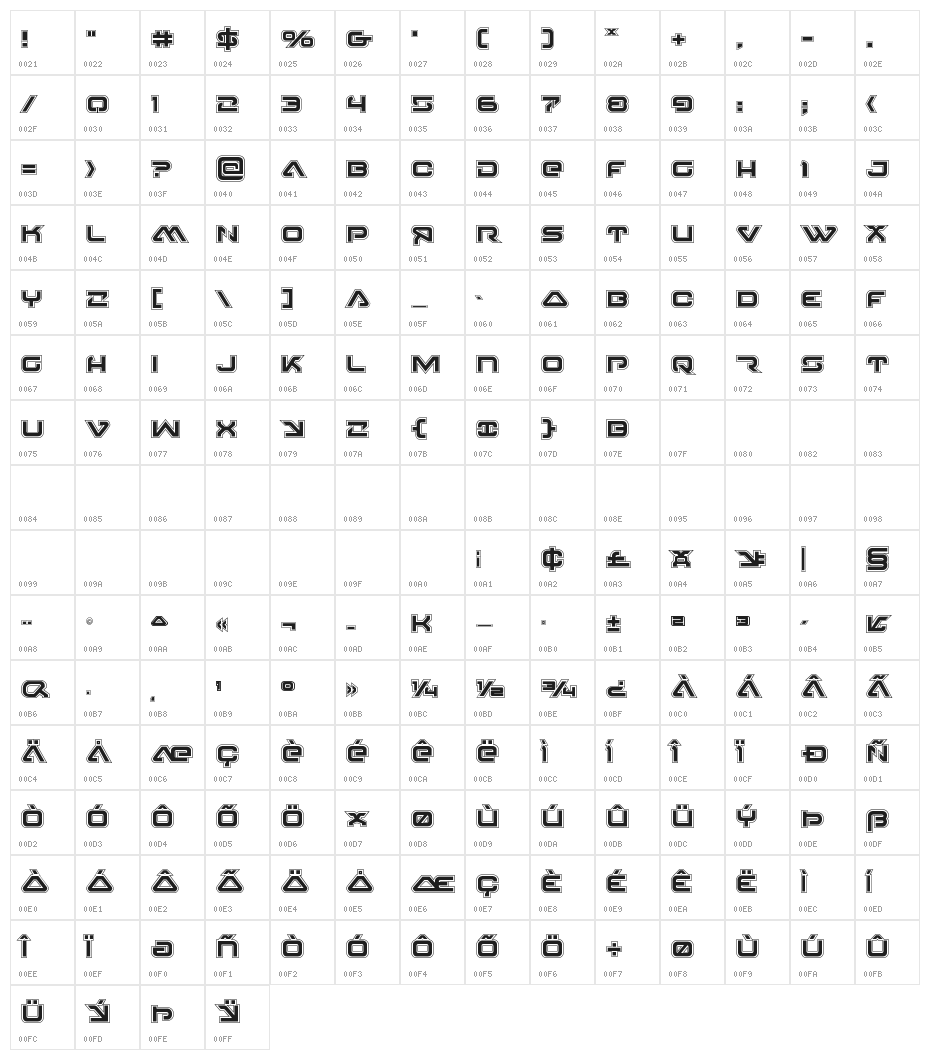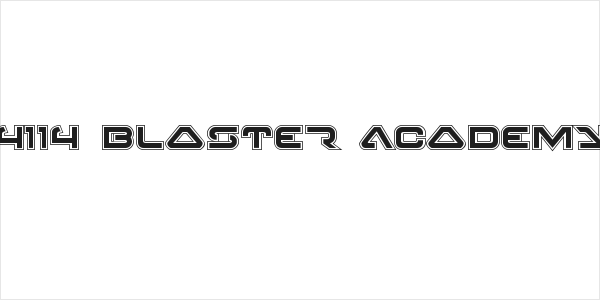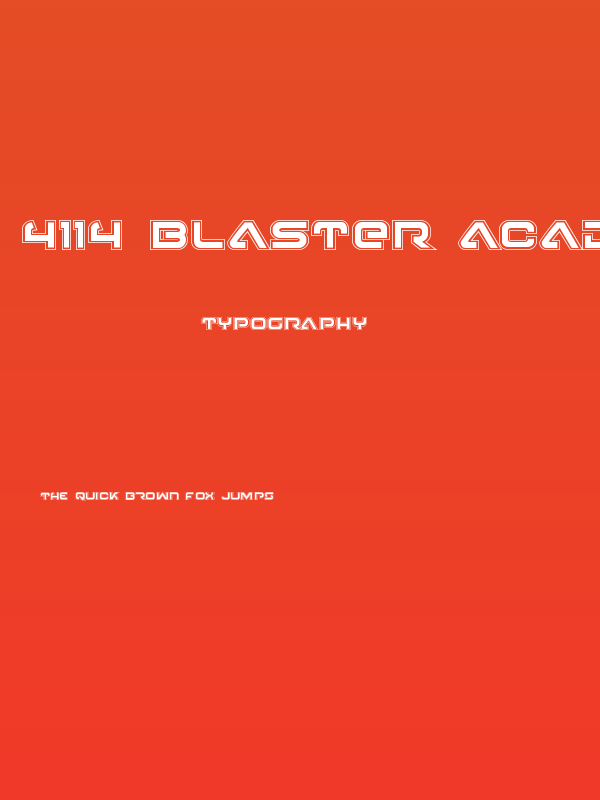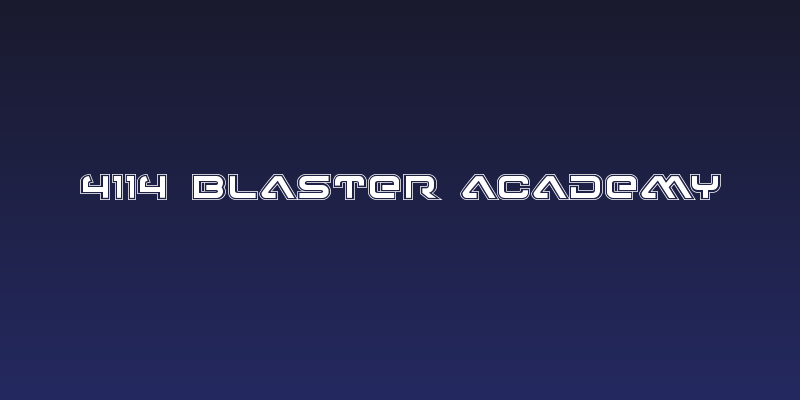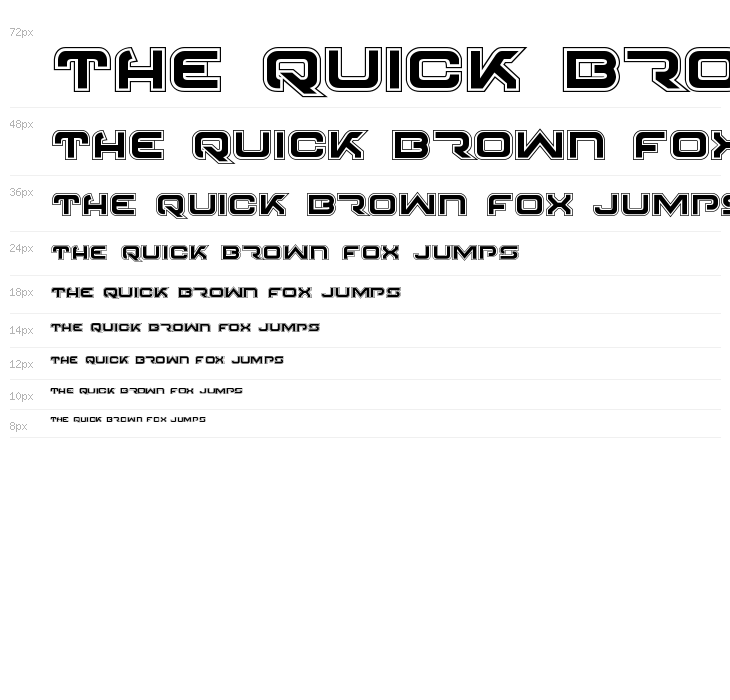
4114 Blaster Academy Font
4114 Blaster Academy Description
This font features a bold, futuristic style with a strong geometric influence. The characters are outlined with a thick border, creating a striking and dynamic appearance. The angular design and sharp edges give it a modern and tech-inspired feel, making it ideal for projects that require a bold statement. The uppercase and lowercase letters maintain a consistent style, while the numbers and special characters complement the overall design. This font is perfect for creating eye-catching headlines, logos, and posters that demand attention.
| Proposed Projects | Ideal for tech-themed posters, sci-fi movie titles, video game graphics, and modern branding projects. |